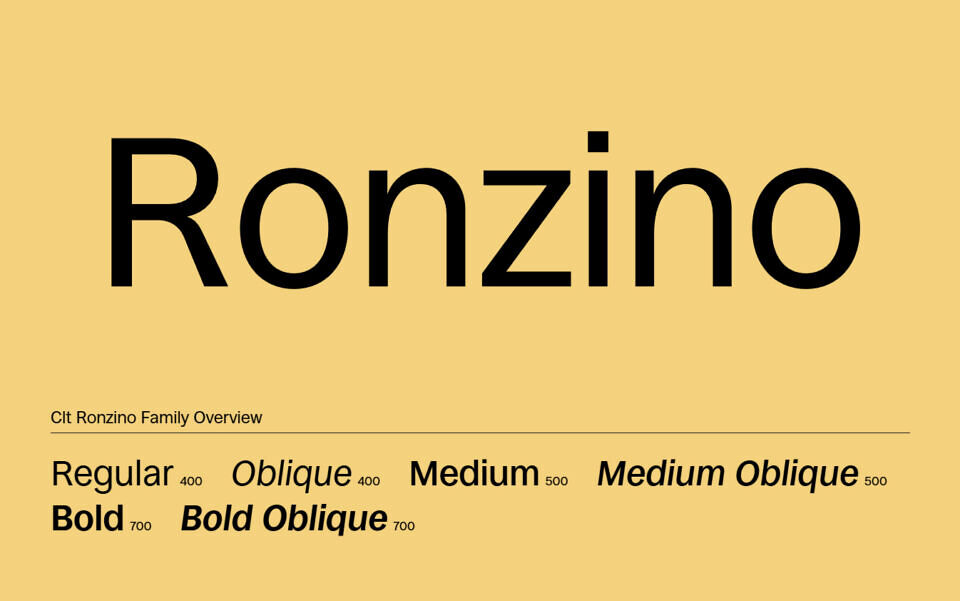
Ronzino is an anonymous, nondescript typeface that offers a new take on a classic, improving upon the drawbacks of its predecessor, Arial. Designed by Luigi Gorlero and Nunzio Mazzaferro, it aims for an “information-driven feeling”.
The font family includes six styles: Regular, Oblique, Medium, Medium Oblique, Bold, and Bold Oblique. It supports Latin characters and is licensed under the SIL Open Font License.